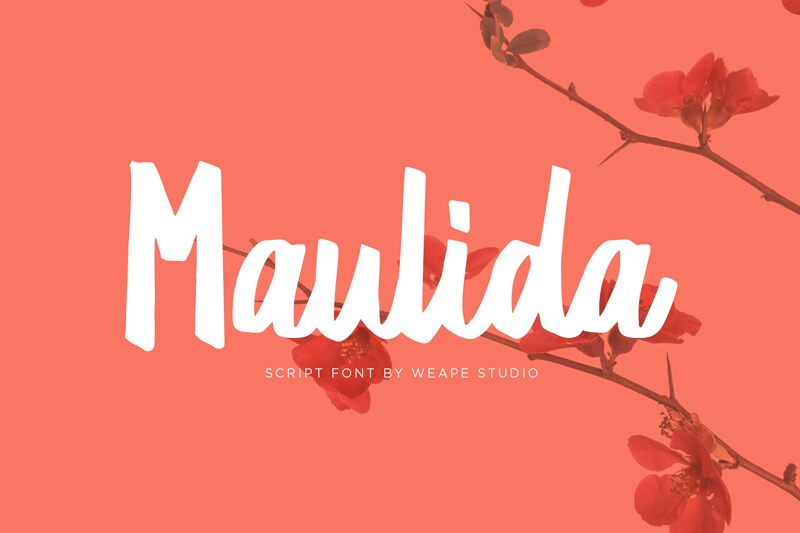
Maulida is a stunning handwritten marker font crafted by the talented designer, Wahyu Andi Prasetiyo. This unique typeface emulates the look and feel of handwriting, giving your projects a personal touch. Whether you're designing invitations, logos, or social media graphics, Maulida's semi-bold font and varied width options make it perfect for a range of projects. Its playful yet professional style will add a touch of personality to your branding and marketing materials. Try using Maulida for anything from product packaging to website design to give your project an extra edge.
Maulida